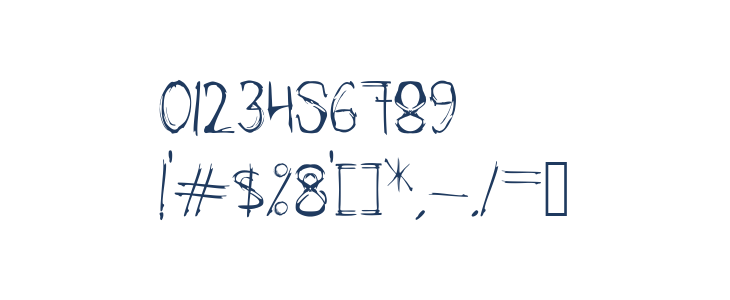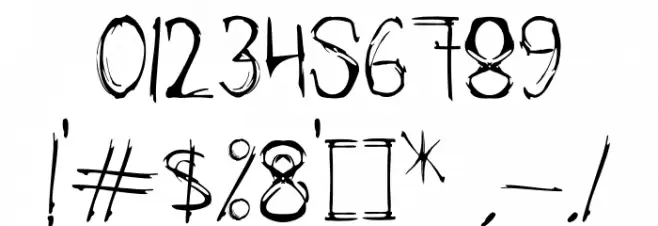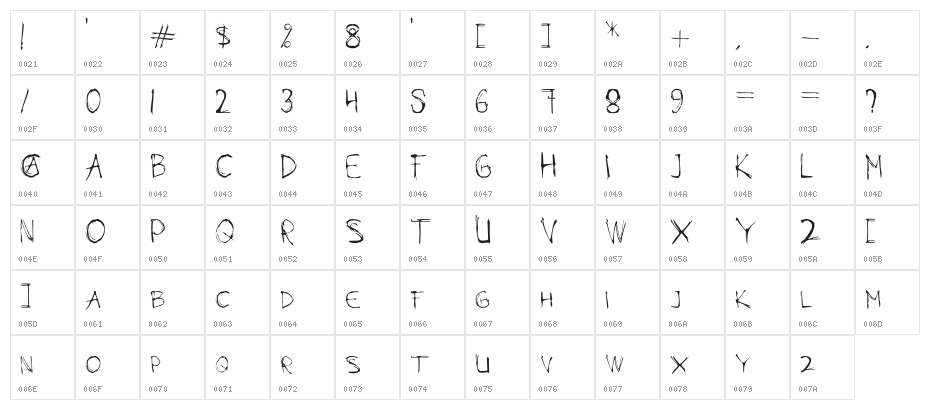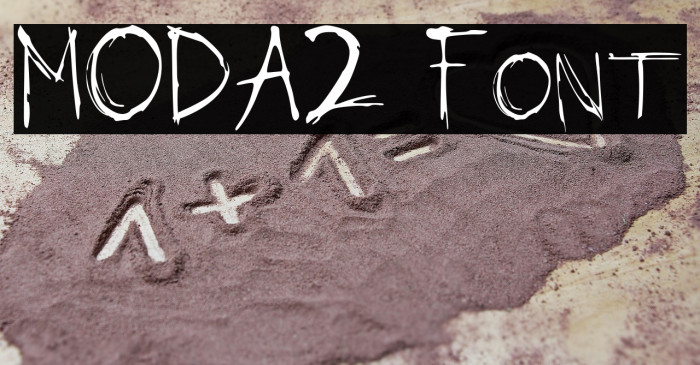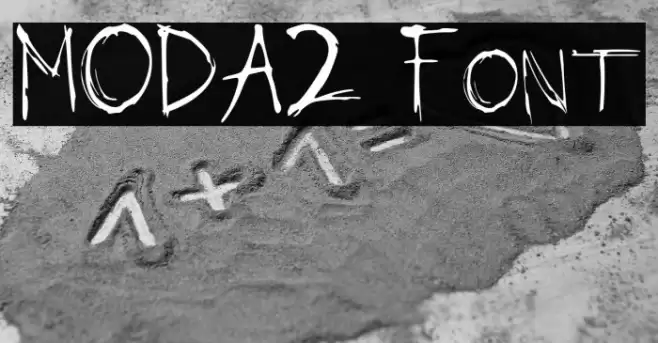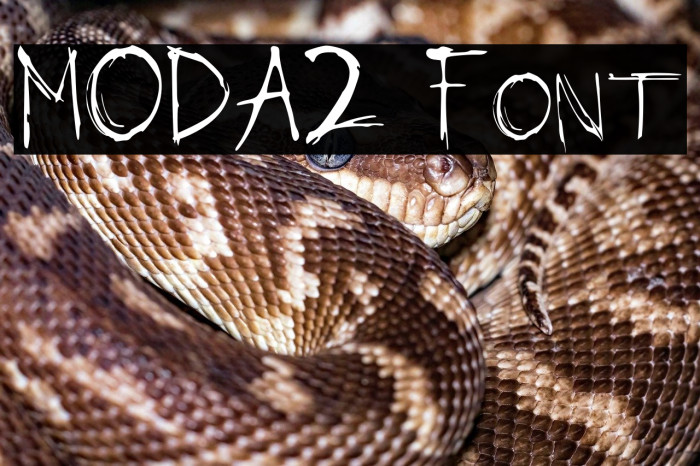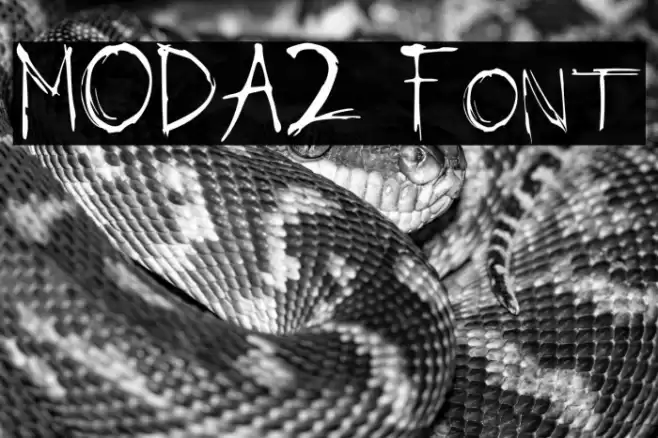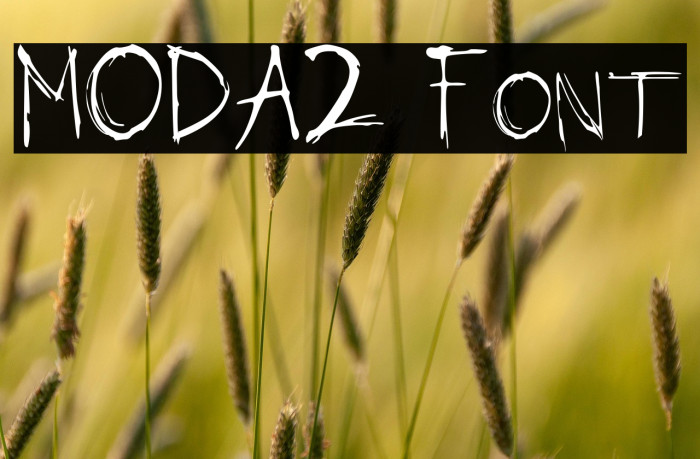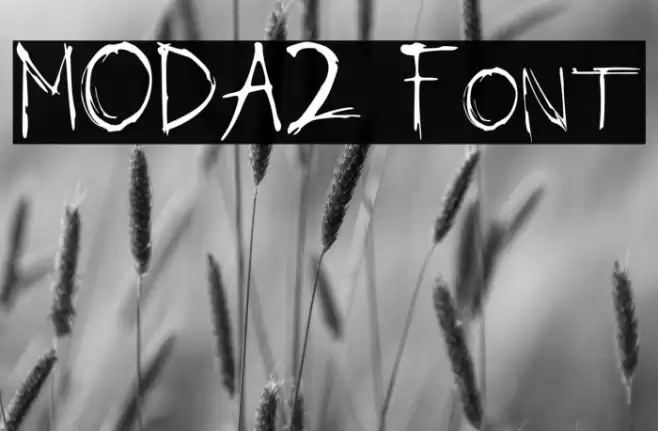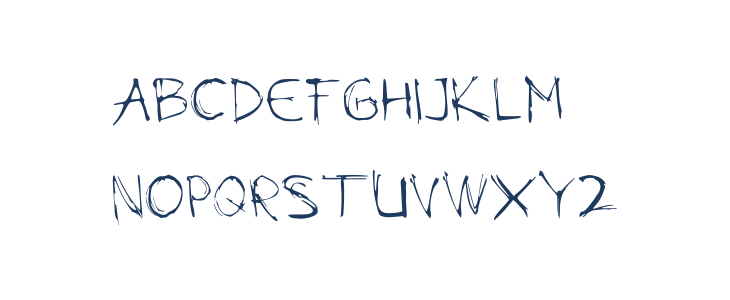
MODAZ Font
MODAZ Description
This font features a bold and expressive style, characterized by its brush-like strokes and uneven edges, giving it a raw and dynamic appearance. The letters are slightly irregular, adding a sense of movement and energy. The uppercase and lowercase letters maintain a consistent style, with a playful yet edgy feel. The numbers and special characters complement the alphabet with the same artistic flair. This font is ideal for projects that require a touch of creativity and boldness, making it suitable for artistic and unconventional designs.
| Proposed Projects | Ideal for posters, album covers, artistic branding, and creative advertising. |